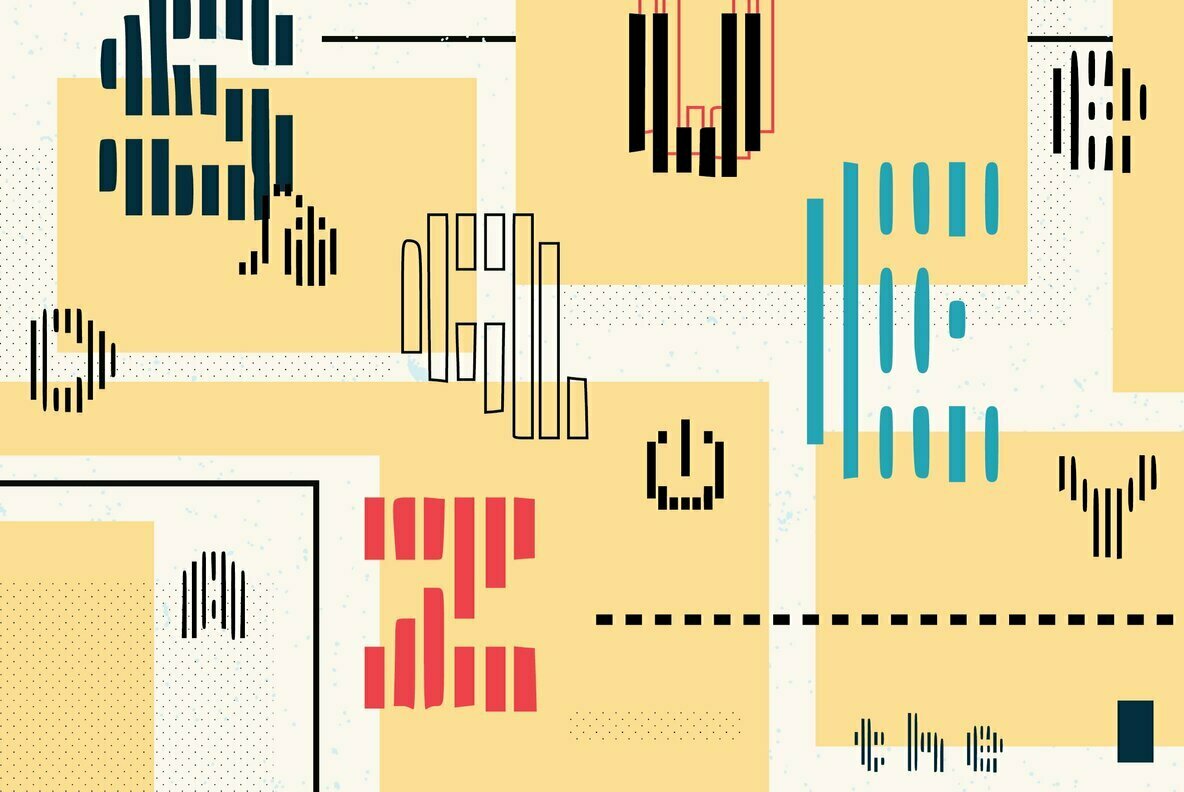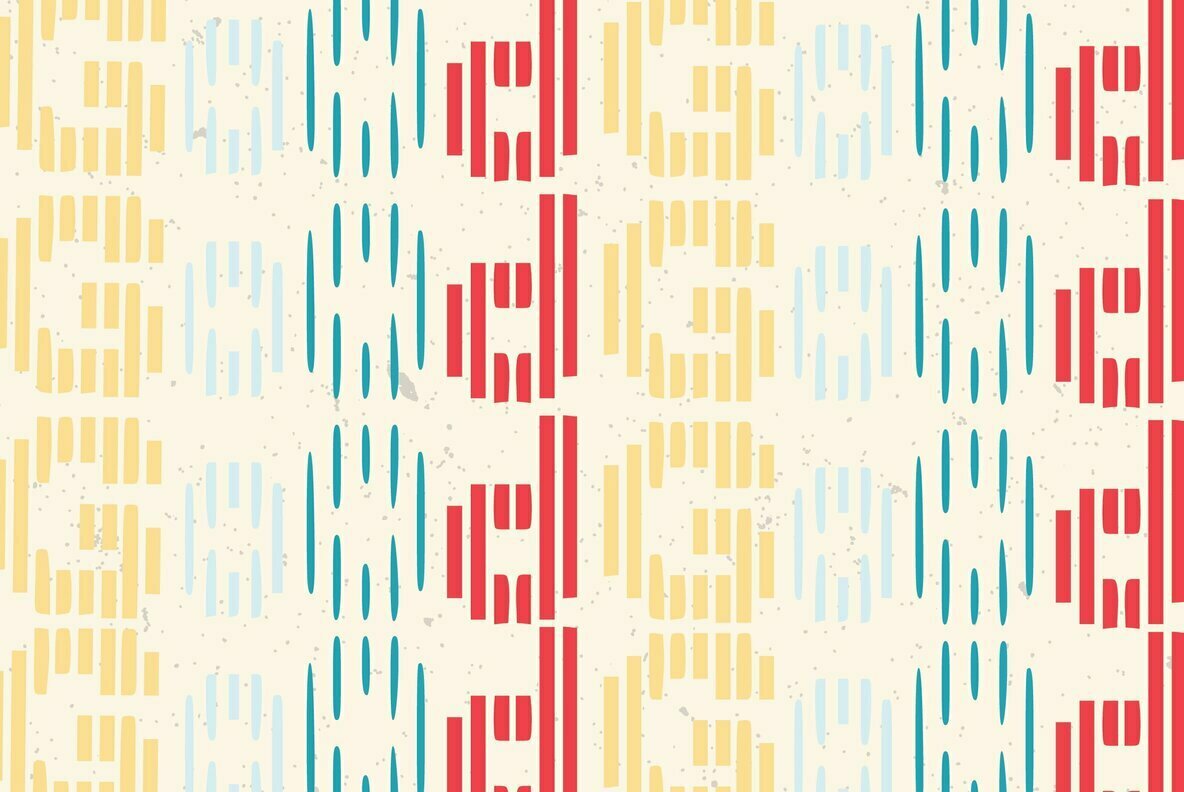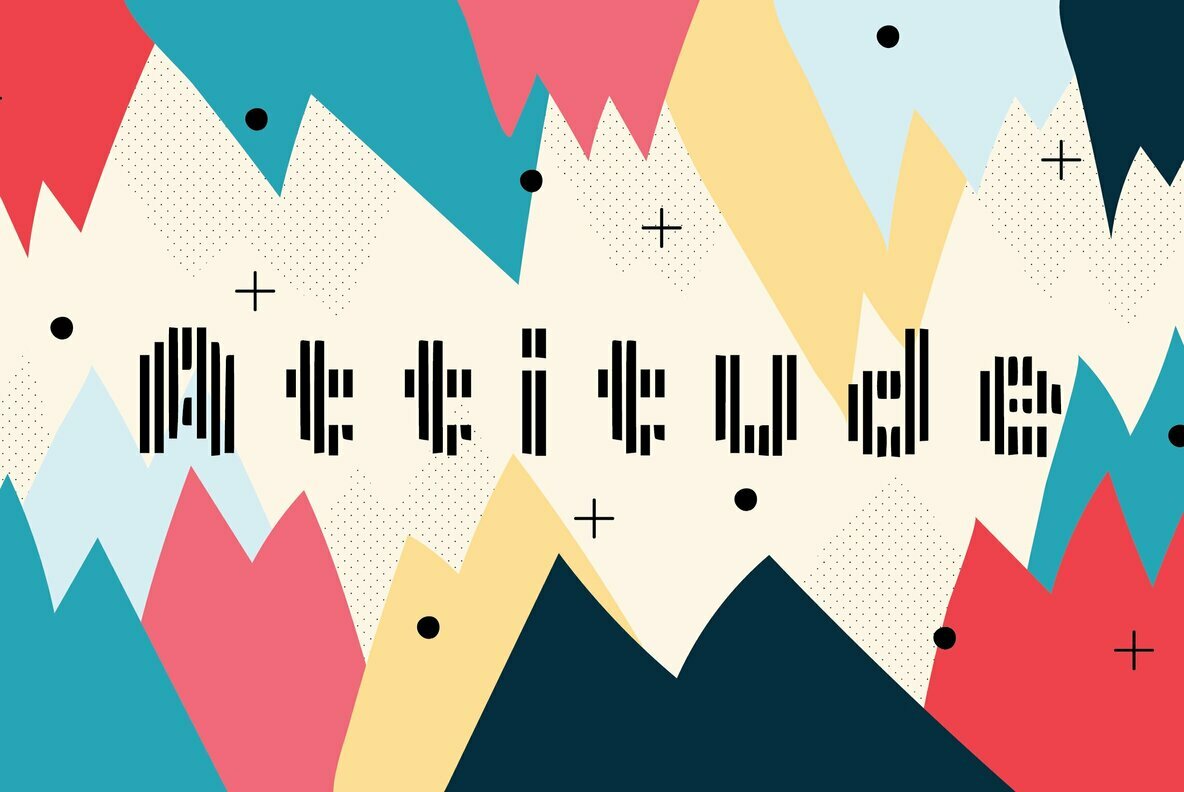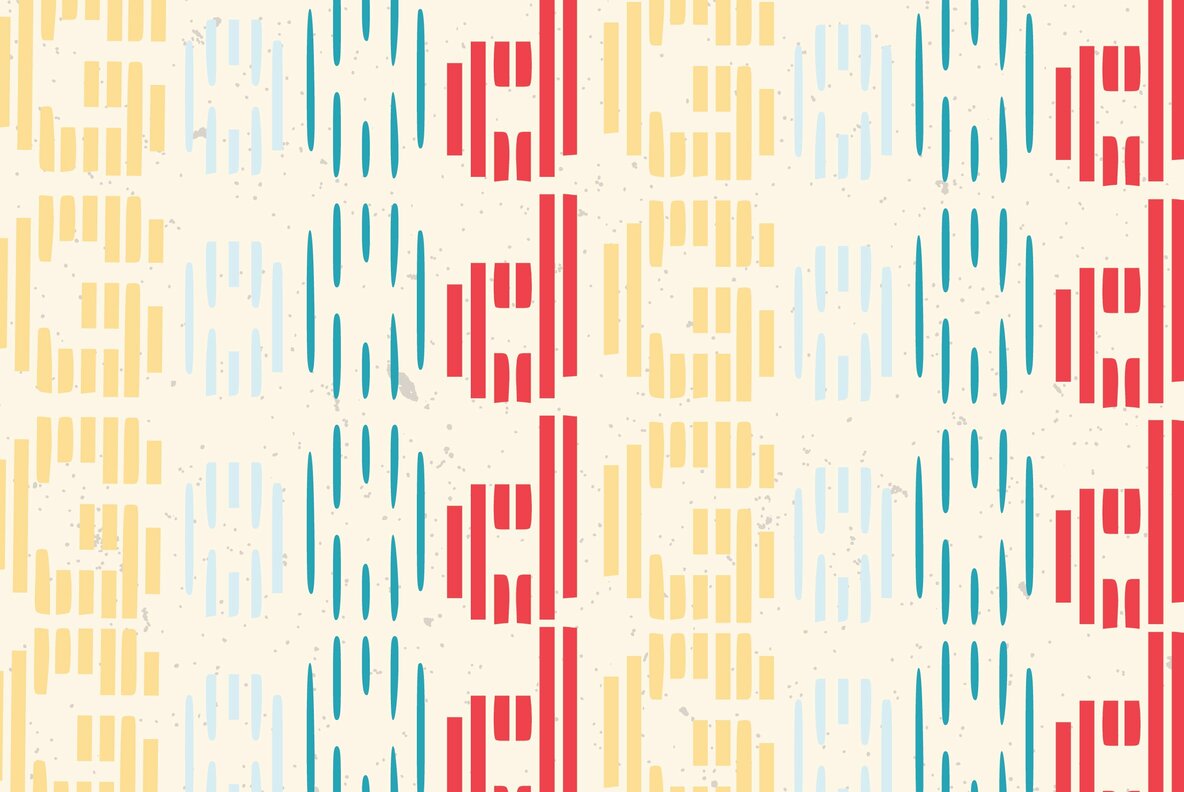
Big Pixel Vertical Font
Big Pixel Vertical in light, regular and bold comprising a set of letters, numbers and good helping of common punctuation all made up a dot matrix design to give a cool retro computer display look. Bundled in with the set Includes 75 web based icons in matching weights for use online or digital design. Combine the font and glyphs to experiment in a larger size for the best impact, check out the black weight. All fonts have a slightly glitchy feel which we really love and we are sure you will too! Don’t forget to check out our other versions too featuring a square matrix, dot matrix, horizontal lined matrix designs.